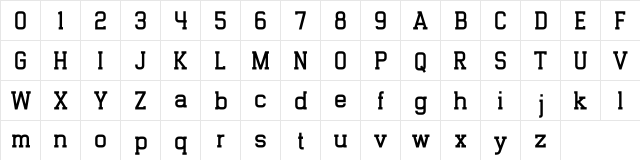
Indonesia Regular
| Designer | Muhammad Husni Haikal |
Design Context for Indonesia Typeface
Indonesia takes a measured approach to typography — its balanced proportions and neutral character make it a reliable workhorse for both digital and print work.